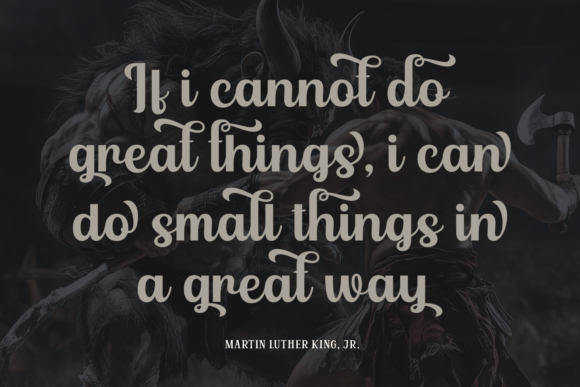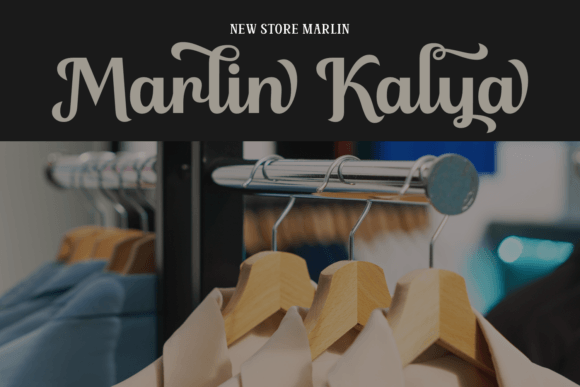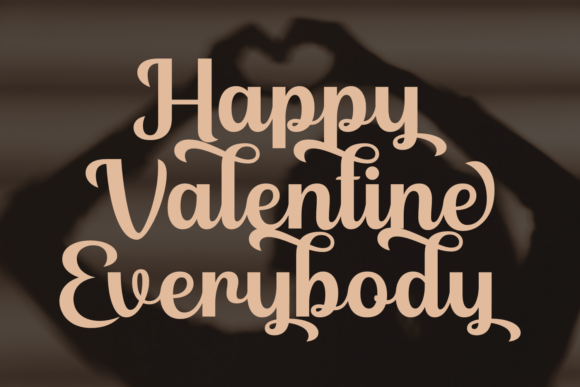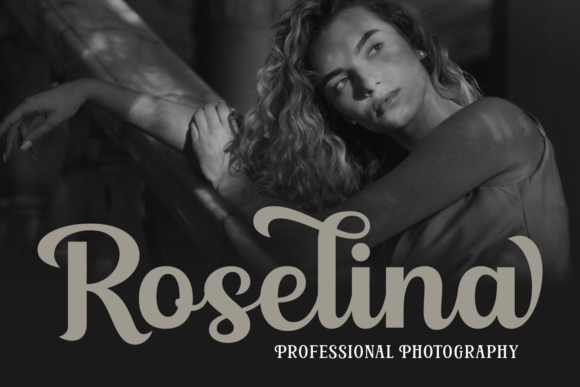
Gullia Font: Elevate Your Designs with Luxury and Sophistication
In the world of typography, fonts play a crucial role in conveying the tone and personality of a brand or design. For those seeking to make a statement with their visual creations, Gullia Font emerges as a premier choice. This bold luxury font is engineered to stand out, characterized by its strong, confident letters that exude a modern and elegant vibe. Ideal for designers and crafters aiming to infuse their projects with a sense of sophistication and richness, Gullia is poised to transform your designs.
The Essence of Gullia Font
Gullia Font is not just another typeface; it’s an experience. Its clean lines and unique stylistic elements work in harmony to create a visual impact that is both immediate and lasting. This font is meticulously crafted to serve the needs of upscale brands and stylish designs, where making a bold statement is paramount. Whether you’re working on a luxury brand’s logo, an elegant wedding invitation, or a high-end product catalog, Gullia brings a level of refinement that’s hard to match.
Key Features of Gullia Font
- Bold and Luxurious: Gullia’s bold presence ensures your message is heard loud and clear, perfect for luxury brands and high-end designs.
- Modern and Elegant: The font’s contemporary design ensures it fits seamlessly into modern aesthetics while maintaining an air of elegance.
- Clean Lines: The clarity of Gullia’s lines enhances readability and ensures your designs look crisp and professional.
- Unique Style: What sets Gullia apart is its distinctive style that adds a unique flair to any project.
Applications of Gullia Font
The versatility of Gullia Font makes it suitable for a wide range of applications. Here are a few ways you can leverage this luxury font:
- Branding: For luxury brands, the font can be a cornerstone of their visual identity, conveying elegance and sophistication from the outset.
- Wedding and Event Invitations: Add a touch of class to your wedding invitations, event posters, or greeting cards with Gullia’s elegant and refined appearance.
- Marketing Materials: Elevate your marketing materials such as brochures, flyers, and catalogs with a font that communicates luxury and quality.
- Web Design: Gullia can also be a valuable asset in web design, particularly for luxury e-commerce sites or high-end service providers looking to make a statement.
Why Choose Gullia Font?
In a sea of typefaces, Gullia stands out for several reasons:
- Sophistication: It brings an instant sense of sophistication to your designs, making it perfect for projects where you want to convey a high-end feel.
- Versatility: Despite its strong personality, Gullia is versatile enough to be used across various design projects.
- Easy to Read: The font’s clarity ensures that your message is communicated effectively without compromising on aesthetics.
Gullia Font is more than just a typeface; it’s a design statement. Its bold luxury presence, combined with its modern elegance and unique style, makes it an indispensable tool for designers and crafters looking to elevate their projects. Whether you’re aiming to create a lasting impression with a luxury brand or simply want to add a touch of sophistication to your designs, Gullia is the perfect choice. Embrace Gullia Font in your next project and experience the transformative power of luxury typography.